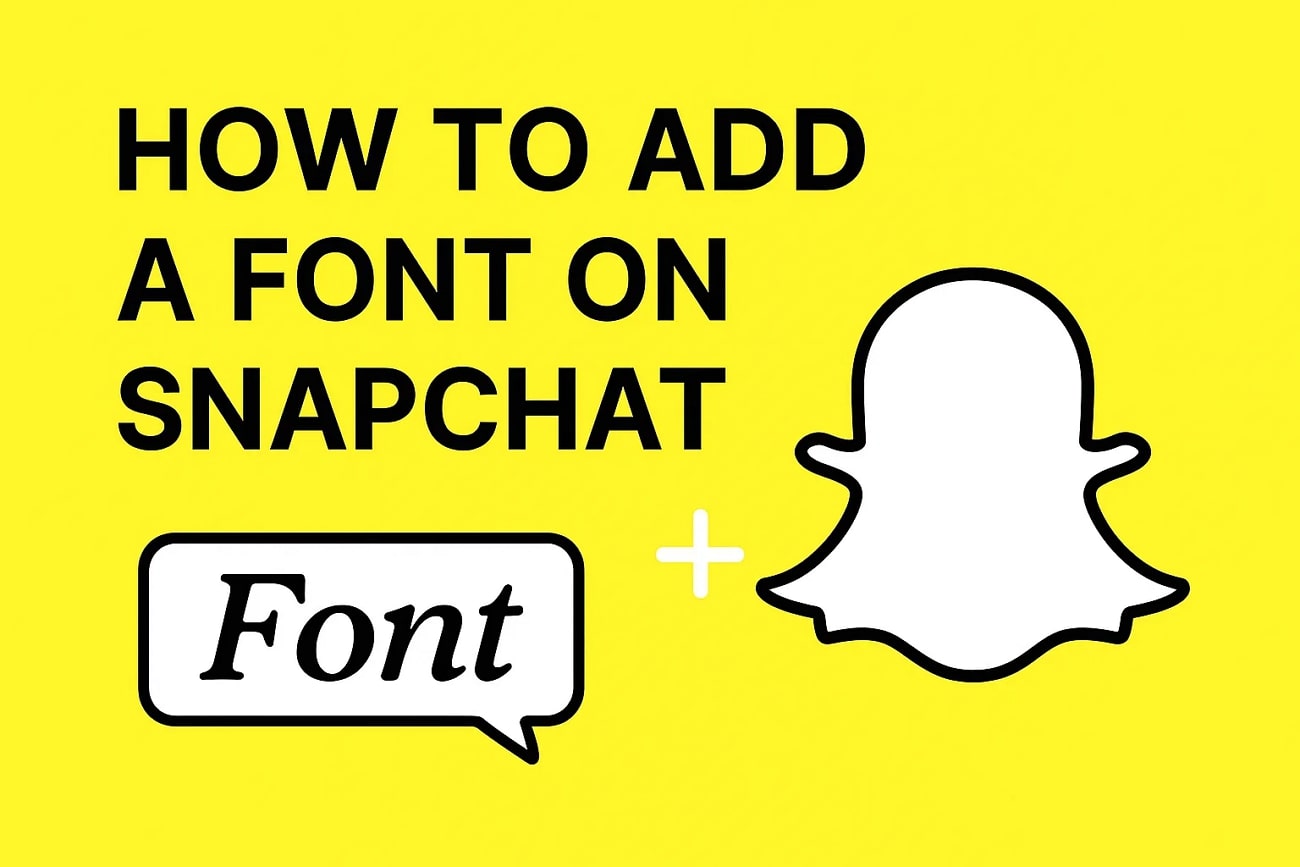
Snapchat Text Fonts: How to Customize, Style, and Enhance Your Snaps
To bypass Snapchat's limitation of only four native fonts (Snapchat Sans, Avenir Next, Helvetica Neue LT Std Roman, and Graphik), use web-based copy-paste generators for simple stylized text or Wondershare Filmora for fully customizable video captions.
● Web-based text generators like FancyFontNames and instafonts.io provide hundreds of instant copy-paste styles suitable for quick snap updates, but they lack manual customization capabilities and frequently feature intrusive ads or unreadable text designs.
● The Filmora mobile app for iOS and Android is best suited for users who need precise control over text size, color, colored background windows, and shadows, as well as those requiring automated AI Captions with built-in speaker detection.
● Wondershare Filmora's desktop editor is ideal for advanced pre-upload refinements, allowing users to generate Dynamic Captions with automated keyword highlights while utilizing AI tools for video and audio denoising to improve raw media quality.
Due to short attention spans in today's fast-paced life, people do not put enough thought into their images. Especially while viewing stories on Snapchat, the quick glance of images could leave your content unnoticed. To make that scroll stop, you need to add catchy elements to the image.
With font on Snapchat, you can convey the intended message to your viewers without taking up much of their time. As Snapchat has a few text styles, it could be hard to decide which style to use for which image. To help you pick the right asset, we have written the article below.
Part 1. What Snapchat Text Fonts Does Snapchat Use?
To help you diversify your content, this social media platform offers a handful of text styles. Check out the following list to find the fonts used by Snapchat:
Snapchat Sans
The first Snapchat text font on our list is a sans-serif text font. This style is a custom-made style, which was introduced in 2016. It is a modern font with playful characteristics, often seen in the captions of your story.
Avenir Next
Before Snapchat Sans, the classic branding used Avenir, a modern sans-serif. Due to its approachability, this font became a part of the app's logo and most of the interface.
Helvetica Neue LT Std Roman
This font Snapchat is used alongside Avenir within the interface of this app. Helvetica has a clean and professional appearance, making it fit for a popular social media platform.
Graphik
With its clean and readable letterforms, Graphik is the corporate font identity of Snapchat Inc. It is a broader brand font that aligns with Snap's corporate identity.
Part 2. How to Change Snapchat Text Fonts - Detailed Guide
Snapchat has a straightforward way of giving diversity to your snaps. It gives you a handful of fonts that can be interchanged easily. Besides changing the text styles, users can also adjust its position on the media. You can go through the guide below and learn how to use this app to change font style Snapchat:
Instructions. Open the camera of Snapchat and capture a picture or a video. Tap the "T" icon at the top right and type the text. When you are done typing, explore the font styles and slide to apply the desired style.
Part 3. Popular Tools to Make Snapchat Text Fonts
As mentioned, this social media platform does not provide a lot of fonts, making users look for text style alternatives. The following list features the popular tools that can be used as Snapchat font generators:
1. Quicktools by Picsart
With over 170 fonts, Quicktools by Picsart makes it to our list. Its straightforward font generator enables users to handpick the most suitable style. Using its designated image editor, you can paste the generated font on any image and share it across Snapchat. Check out the steps below to explore the guide to using Quicktools for text style generation:
Conclusion
To conclude, font on Snapchat images enhance the visual appeal of the picture. Snapchat has a limited collection of built-in text styles, so using third-party tools for text is better. Wondershare Filmora is a diverse video editor that offers an extensive font library for snap customization. Besides, users can explore its AI utilities that help them uplift the visuals of their snaps.